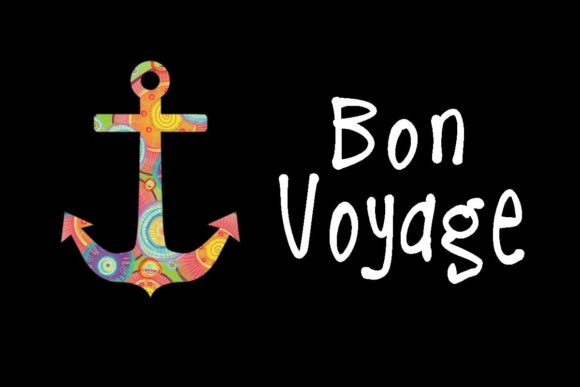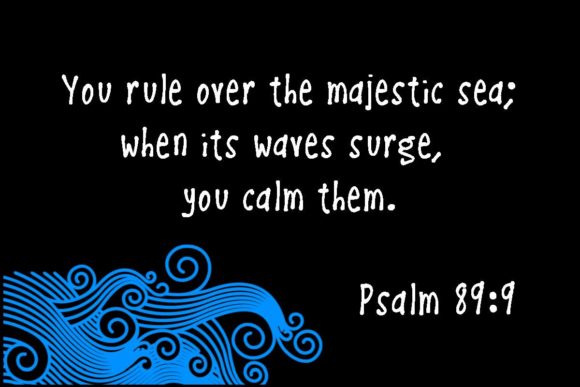
Bon Voyage Font
About Bon Voyage Font
Bon Voyage is a simple and tasteful handwritten font. Get inspired by its unique look and create cute quotes, stationery, amazing logos and much more!